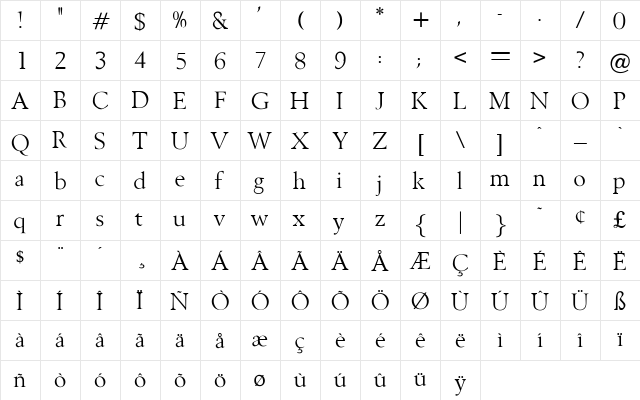
OPTIBerling Medium
Design Context for OPTIBerling Typeface
OPTIBerling takes a measured approach to typography — its balanced proportions and neutral character make it a reliable workhorse for both digital and print work.